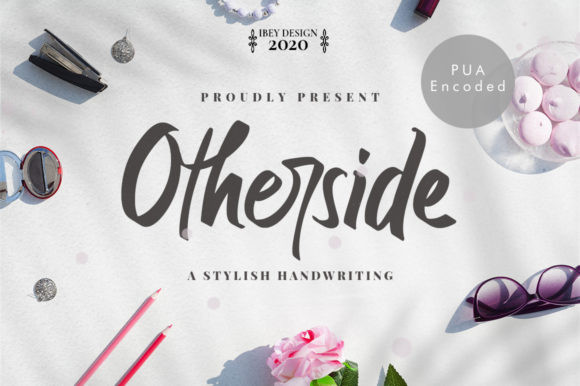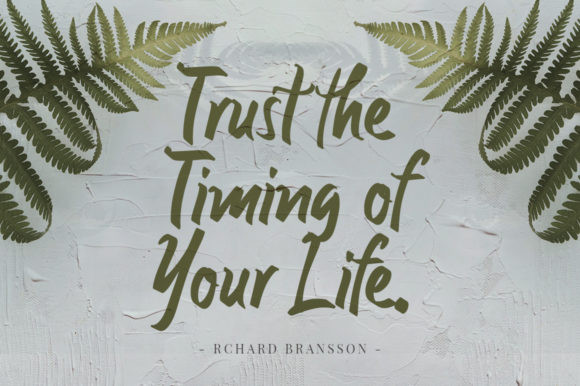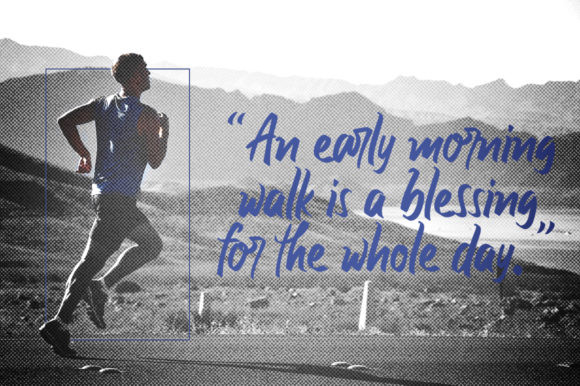
Otherside Font
Otherside FontOtherside is a beautiful and stylish handwritten font. It looks stunning on a variety of designs which need a personalized touch.